Manufacturas Tipográficas Madrileñas
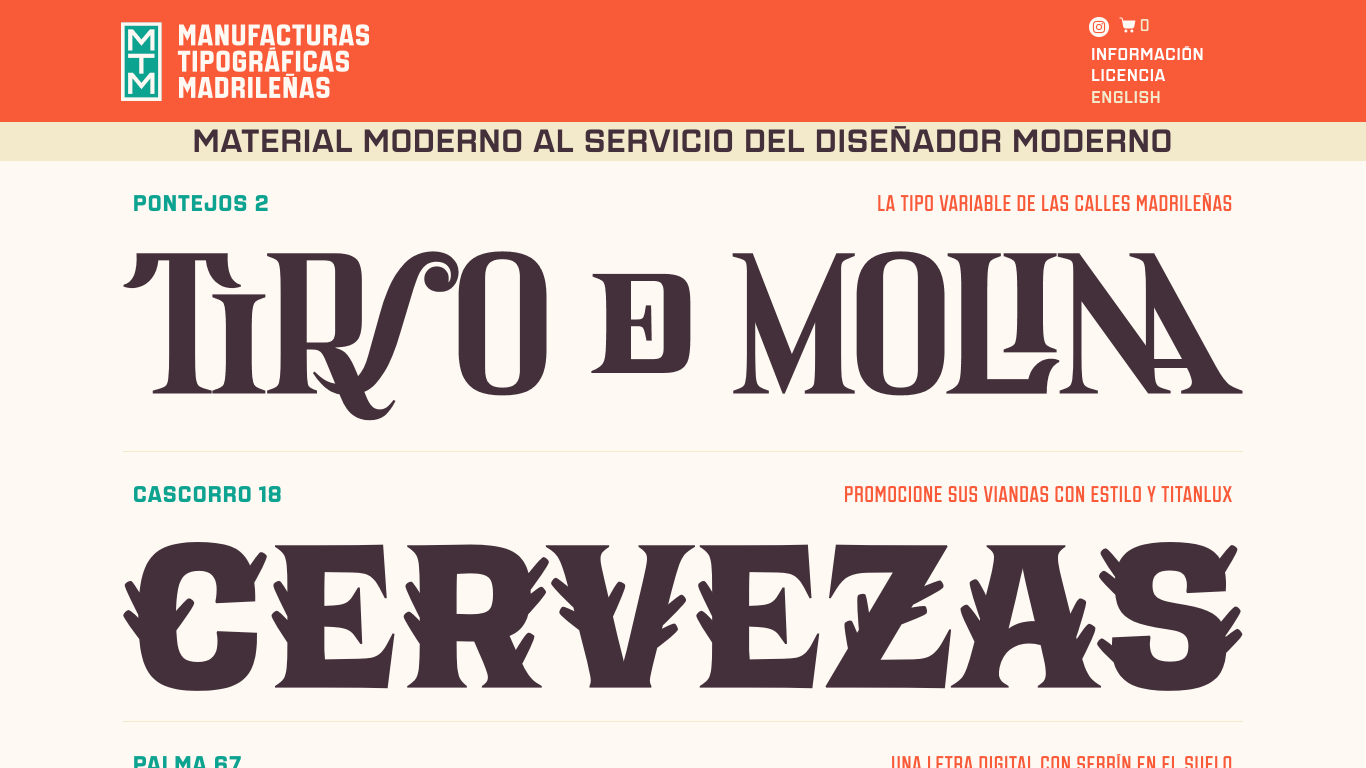
Spain
2015
MTM is a Madrid-based type foundry and design studio founded in 2019 by designer and typographer Javier Sanjurjo. Specialising in contemporary type design, MTM offers a curated catalogue of retail fonts and provides custom typography services for branding and editorial projects. The studio's work is characterised by a blend of geometric precision and expressive detail, reflecting a commitment to both functional and experimental design.